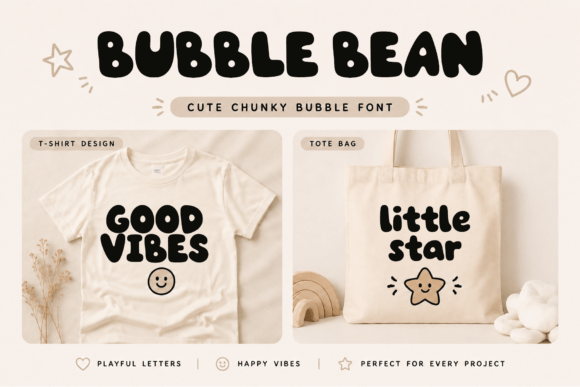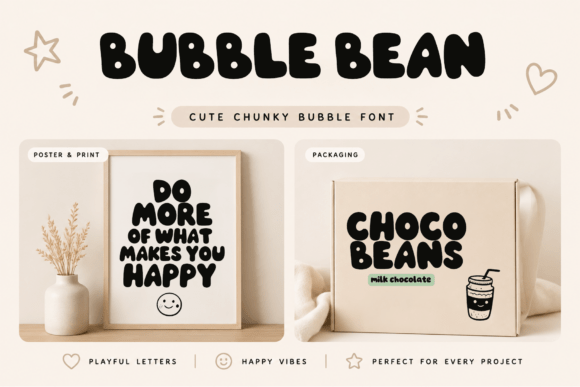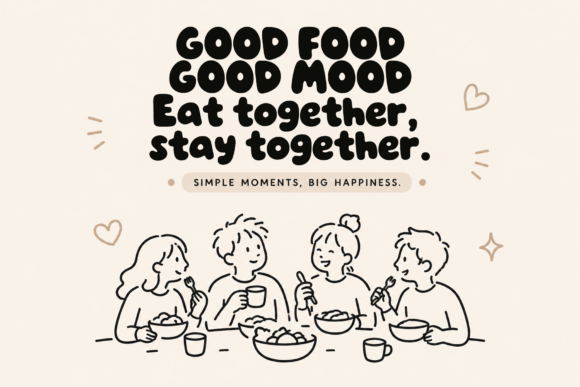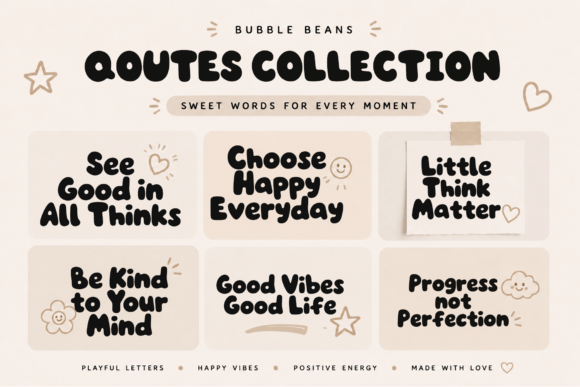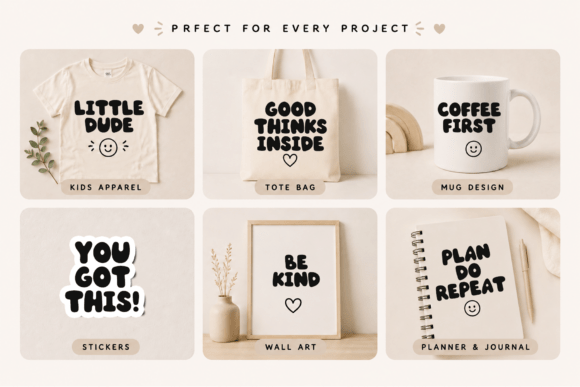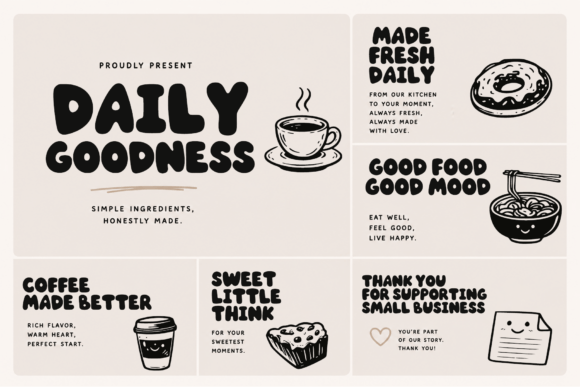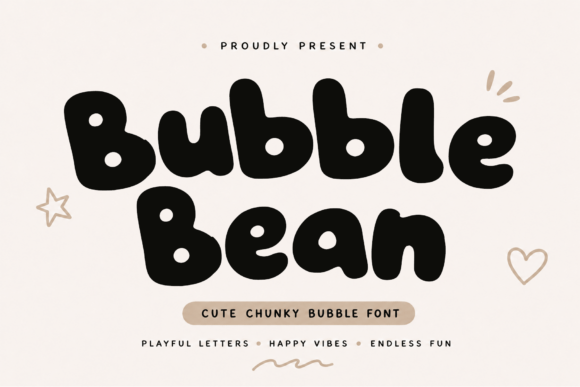
Bubble Bean Font: Add a Playful Touch to Your Designs
Are you looking for a font that can bring a soft, cheerful, and full-of-character feel to your designs? Look no further than Bubble Bean, a playful bubble-style display font that’s perfect for a wide range of creative projects. In this article, we’ll take a closer look at the features and benefits of Bubble Bean, and explore how you can use it to enhance your designs.
What is Bubble Bean Font?
Bubble Bean is a bold, rounded display font that’s crafted to deliver a friendly and highly legible look at various sizes. Its smooth curves and playful letterforms make it perfect for designs that require a fun and lighthearted theme. Whether you’re working on a kids’ branding project, food packaging, posters, social media content, merchandise, or other creative projects, Bubble Bean is a versatile font that can help you achieve your design goals.
Key Features of Bubble Bean Font
So, what makes Bubble Bean font so special? Here are some of its key features:
- Bold and rounded letterforms: Bubble Bean’s letterforms are designed to be bold and rounded, making them easy to read and recognize.
- Smooth curves: The font features smooth curves that give it a soft and cheerful feel.
- Extra doodles: Bubble Bean comes with extra doodles that you can use to add more creative possibilities to your designs.
- Highly legible: The font is designed to be highly legible at various sizes, making it perfect for a wide range of design applications.
Benefits of Using Bubble Bean Font
So, why should you choose Bubble Bean font for your designs? Here are some of the benefits of using this font:
- Easy to read: Bubble Bean’s bold and rounded letterforms make it easy to read, even at small sizes.
- Adds a playful touch: The font’s playful and cheerful feel can add a fun and lighthearted touch to your designs.
- Versatile: Bubble Bean is a versatile font that can be used for a wide range of design applications, from kids’ branding to food packaging and more.
- Enhances creativity: The font’s extra doodles can help you add more creative possibilities to your designs and enhance your overall creativity.
Design Applications for Bubble Bean Font
Bubble Bean font is perfect for a wide range of design applications, including:
- Kids branding: The font’s playful and cheerful feel makes it perfect for kids’ branding projects, such as logos, packaging, and marketing materials.
- Food packaging: Bubble Bean’s fun and lighthearted theme makes it perfect for food packaging designs, such as labels, wrappers, and boxes.
- Posters: The font’s bold and rounded letterforms make it perfect for posters, flyers, and other print materials.
- Social media content: Bubble Bean’s playful feel makes it perfect for social media content, such as graphics, posts, and stories.
- Merchandise: The font’s fun and lighthearted theme makes it perfect for merchandise designs, such as t-shirts, mugs, and tote bags.
Tips for Using Bubble Bean Font
Here are some tips for using Bubble Bean font in your designs:
- Experiment with different sizes: Bubble Bean font is highly legible at various sizes, so don’t be afraid to experiment with different sizes to find the one that works best for your design.
- Use the extra doodles: The font’s extra doodles can help you add more creative possibilities to your designs, so be sure to use them to enhance your creativity.
- Pair it with other fonts: Bubble Bean font can be paired with other fonts to create a unique and interesting design, so don’t be afraid to experiment with different font combinations.
| Author | cocodesign |
In conclusion, Bubble Bean font is a playful bubble-style display font that’s perfect for a wide range of creative projects. Its bold, rounded letterforms, smooth curves, and extra doodles make it a versatile font that can add a soft, cheerful, and full-of-character feel to any design. Whether you’re working on a kids’ branding project, food packaging, posters, social media content, merchandise, or other creative projects, Bubble Bean font is a great choice. So why not give it a try and see how it can enhance your designs?